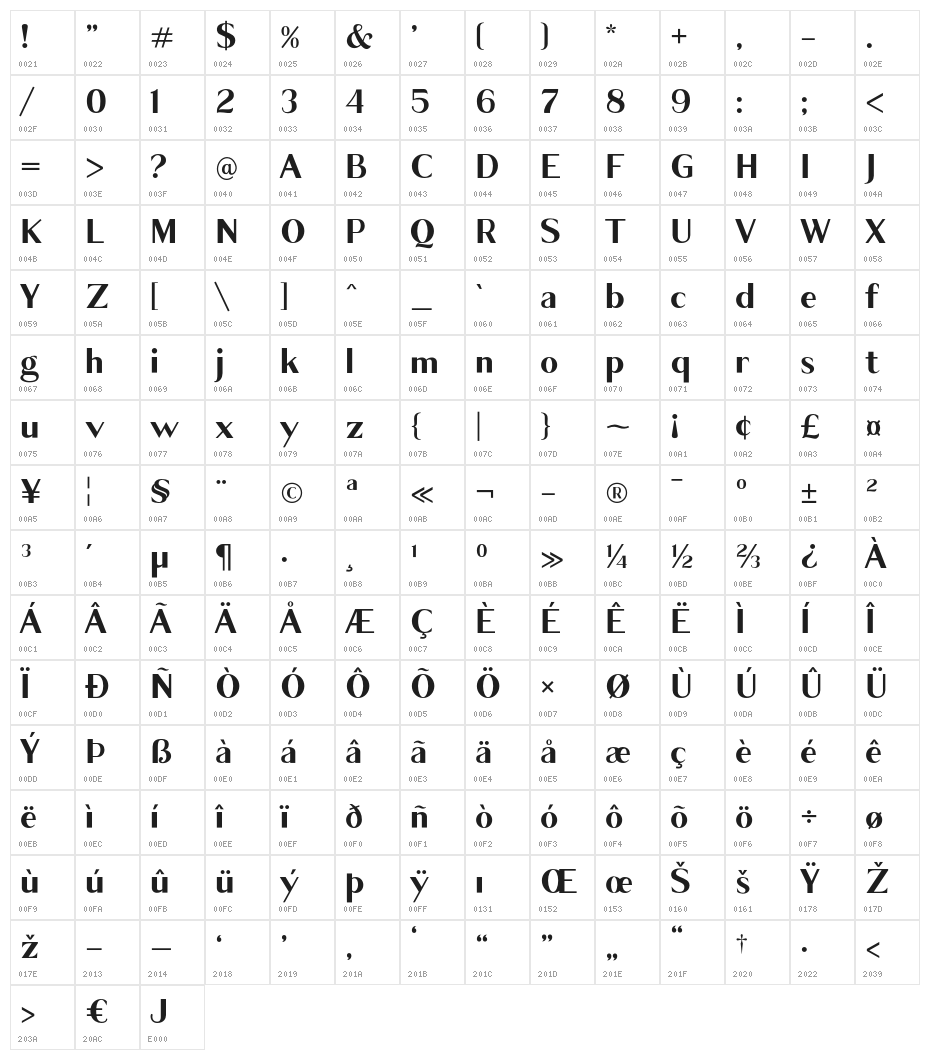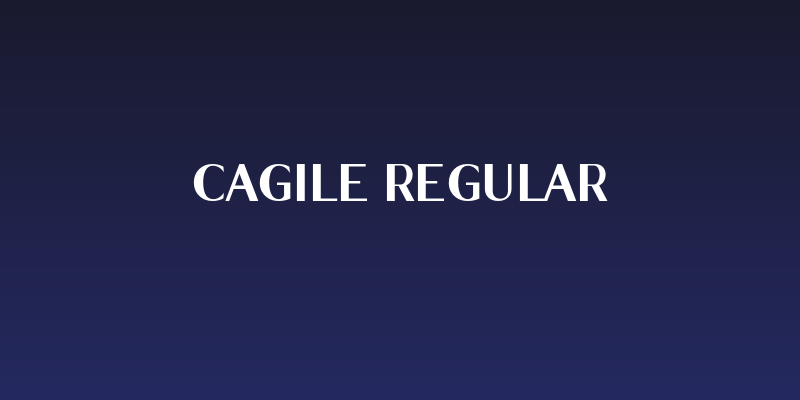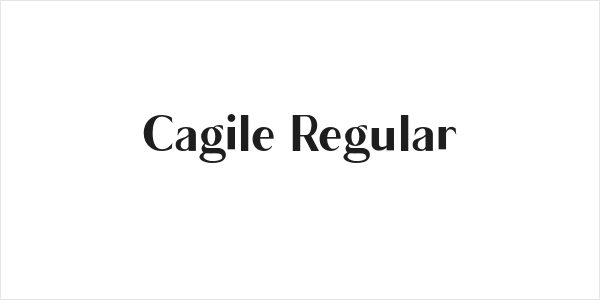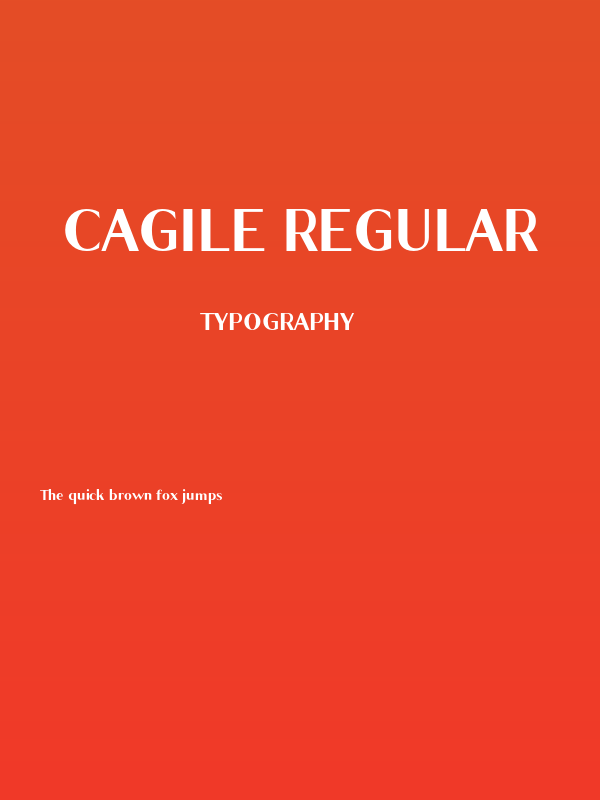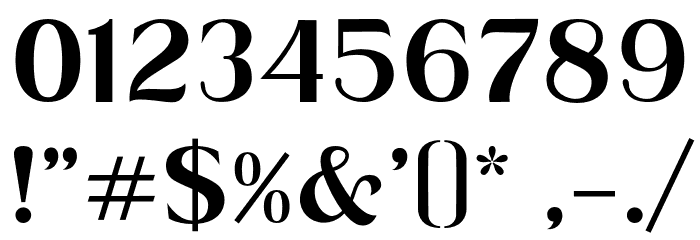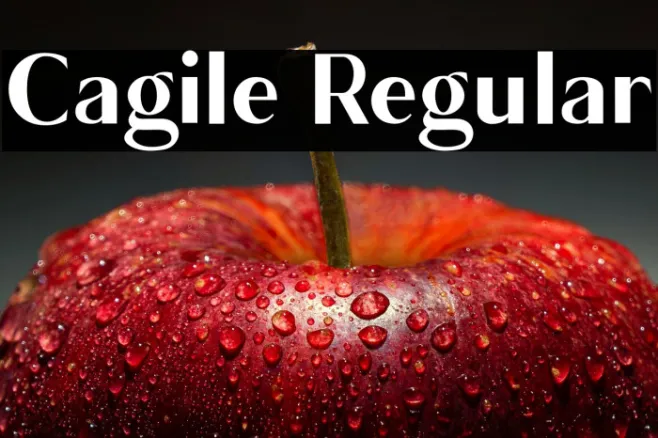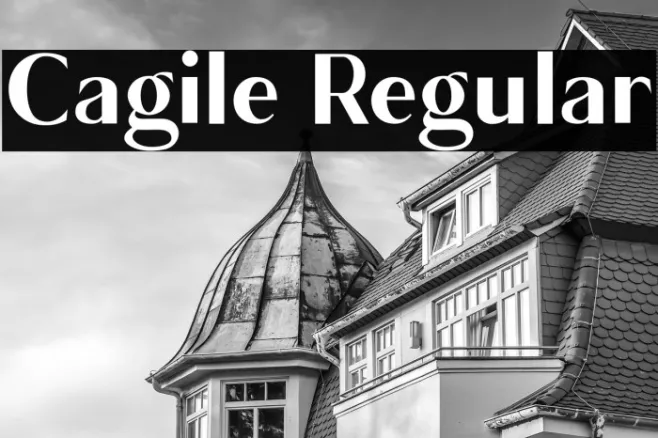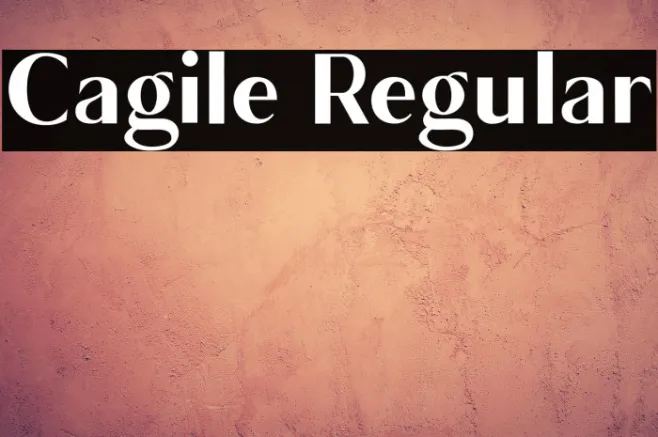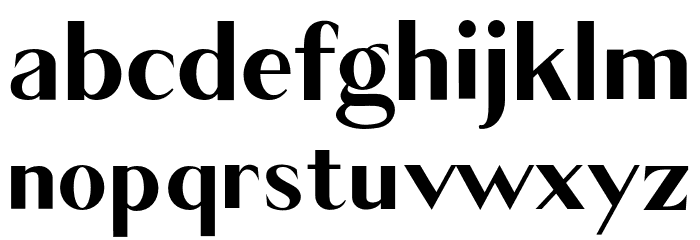
Cagile Regular Font
Cagile Regular Description
This font features a modern serif style with a strong presence and elegant curves. The uppercase letters are bold and commanding, while the lowercase letters maintain a graceful and fluid form. The numerals are clear and distinct, making them highly legible. Special characters are designed with a consistent style, ensuring uniformity across all glyphs. The font's overall appearance is sophisticated, making it suitable for a variety of applications where a touch of elegance is desired.
| Proposed Projects | Ideal for branding, editorial design, book covers, and high-end product packaging. |